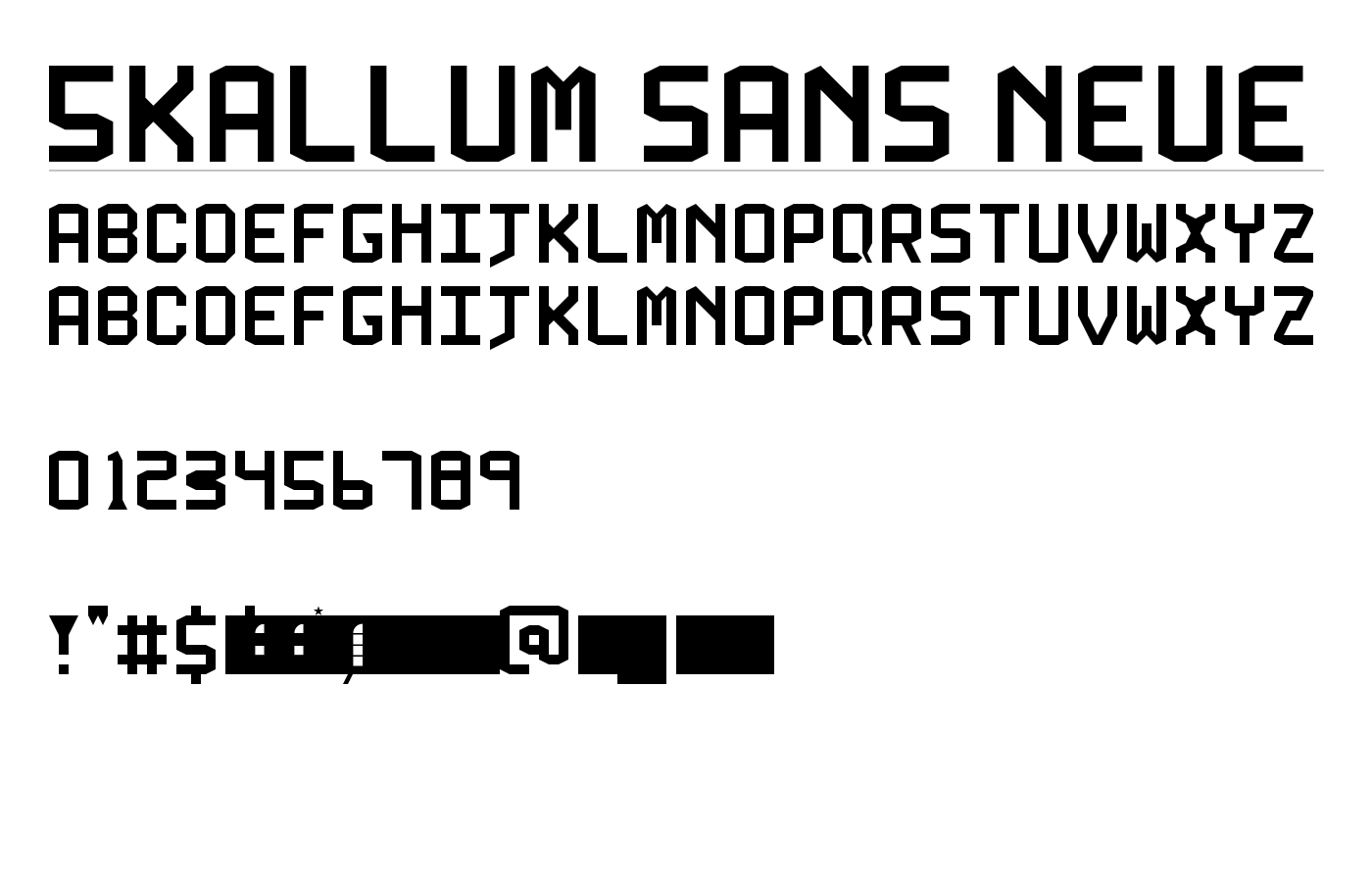
5Kallum Sans Neue is a bold, condensed sans serif font with a modern, geometric feel characterized by sharp angles and uniform stroke widths. Its all-caps design delivers a strong, technical vibe that works well for headlines, branding, and projects needing a futuristic or industrial touch. This font stands out in edgy, digital, or tech-related contexts where a clean yet striking appearance is desired.
5Kallum Sans Neue Font
About 5Kallum Sans Neue Font
| Font family | 5Kallum Sans Neue Font |
| Designer | Noah - 10 year old typomaniac |